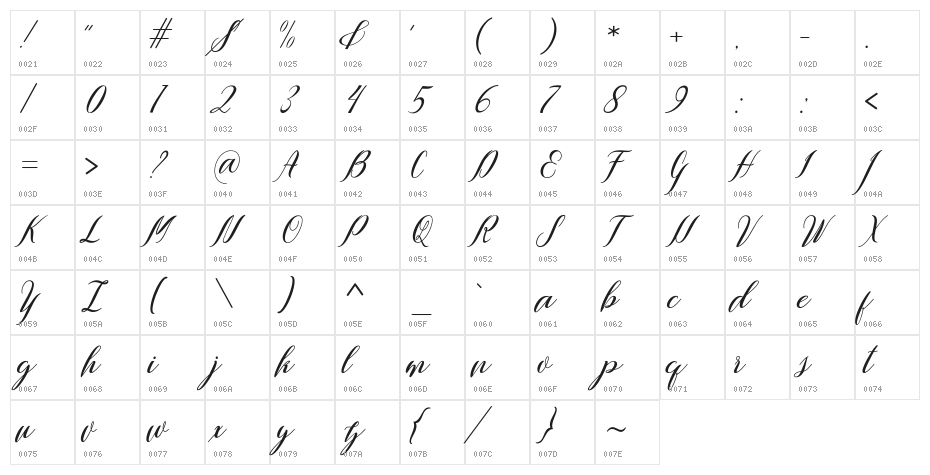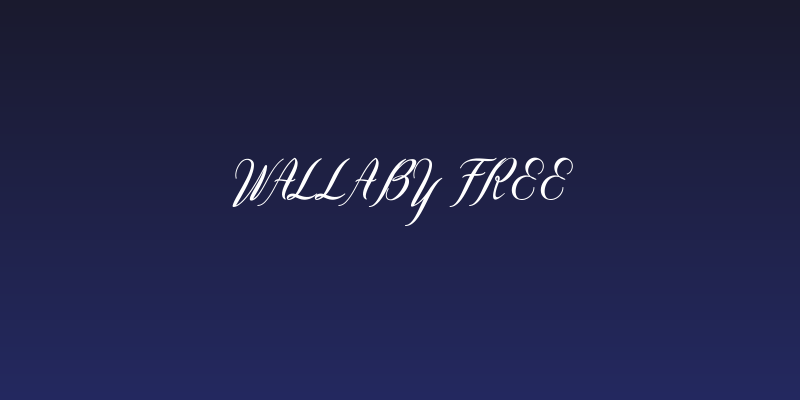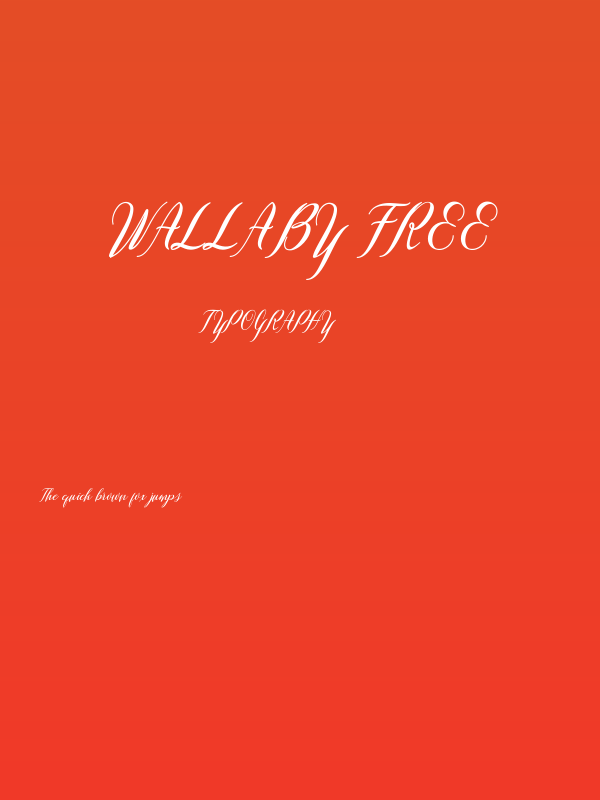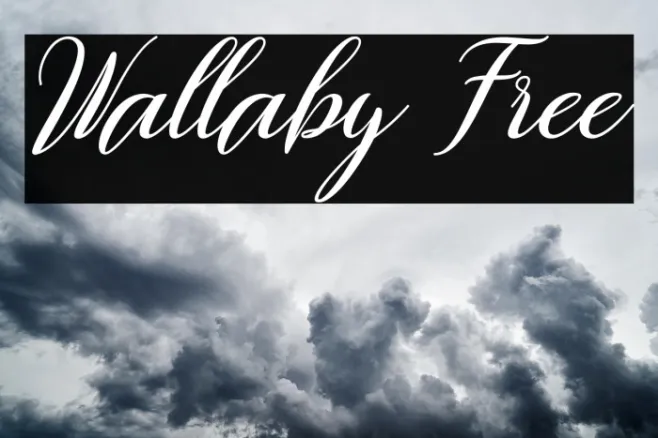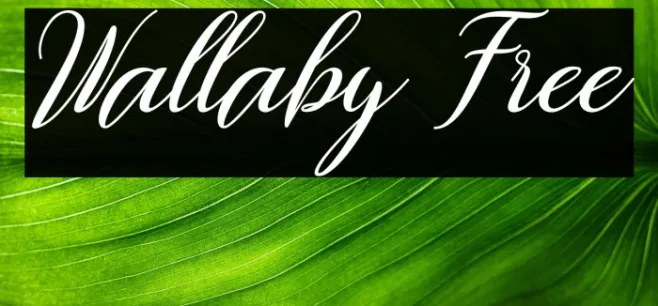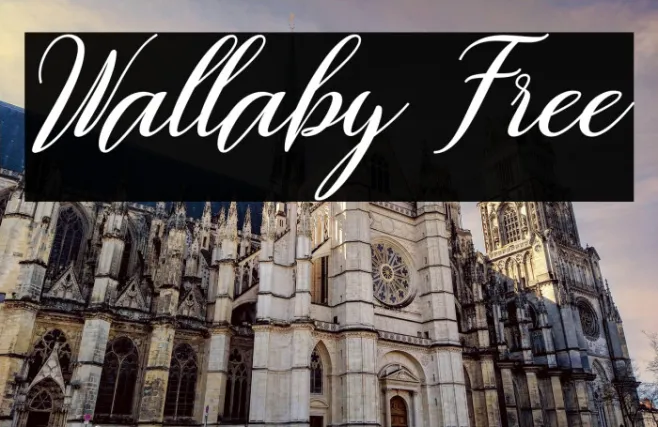
Wallaby Free Font
Wallaby Free Description
This elegant script font features flowing, interconnected letters with a graceful, handwritten style. The uppercase letters are tall and slightly slanted, giving a sense of movement and sophistication. The lowercase letters maintain a consistent flow, with some characters featuring delicate loops and swashes. The numerals are designed to match the script style, with curved lines and a slight slant. Special characters are seamlessly integrated, maintaining the overall aesthetic. This font exudes a sense of elegance and formality, making it suitable for a variety of creative projects.
| Overall Style | Elegant, Formal |
| Use Case | Headlines, Invitations, Branding |
| Proposed Projects | Ideal for wedding invitations, elegant branding, personal stationery, and decorative quotes. |